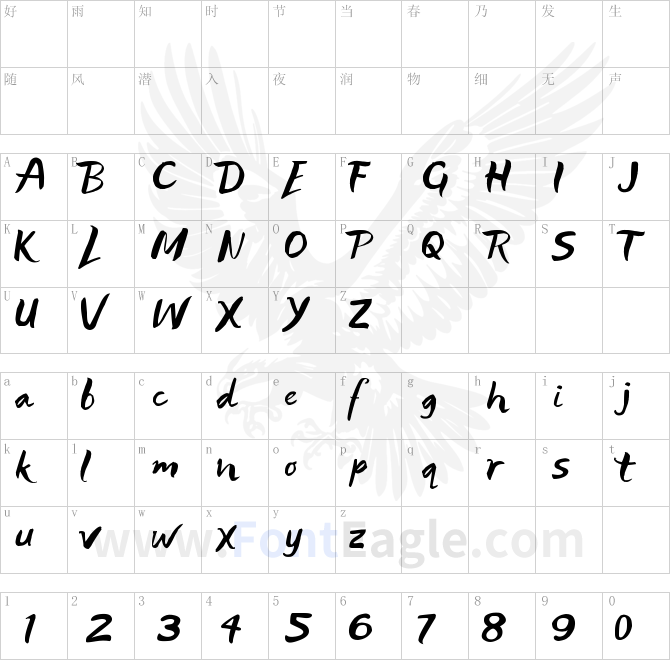
- Font name:Lifelogo Hard
- Font Copyright:Typeface © by DLVD. All Rights Reserved. This font is use to base off the logos Lifetime, Lifetime Movie Network & Lifetime Real Women.